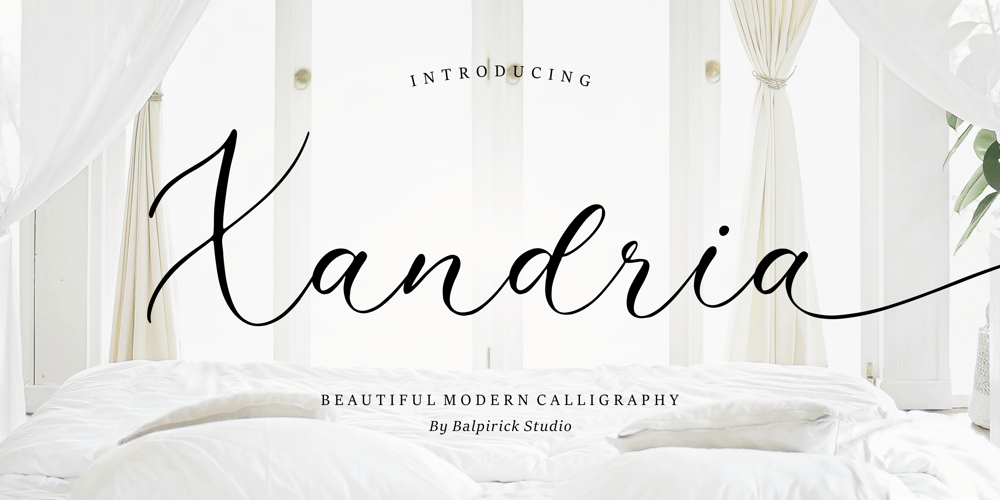
Xandria
Xandria font
Xandria Font Family was designed by Restu Angga and published by Balpirick. Xandria contains 1 styles and family package options. Xandria is a Beautiful Modern Calligraphy Font.Xandria is perfect for product packaging, branding project, megazine, social media, wedding, or just used to express words above the background.Xandria also multilingual support.Lowercase font Stylistic Alternates Ligatures Symbols & Punctuation OpenType Features.Enjoy the font, feel free to comment or feedback, send me PM or email.Thank you!